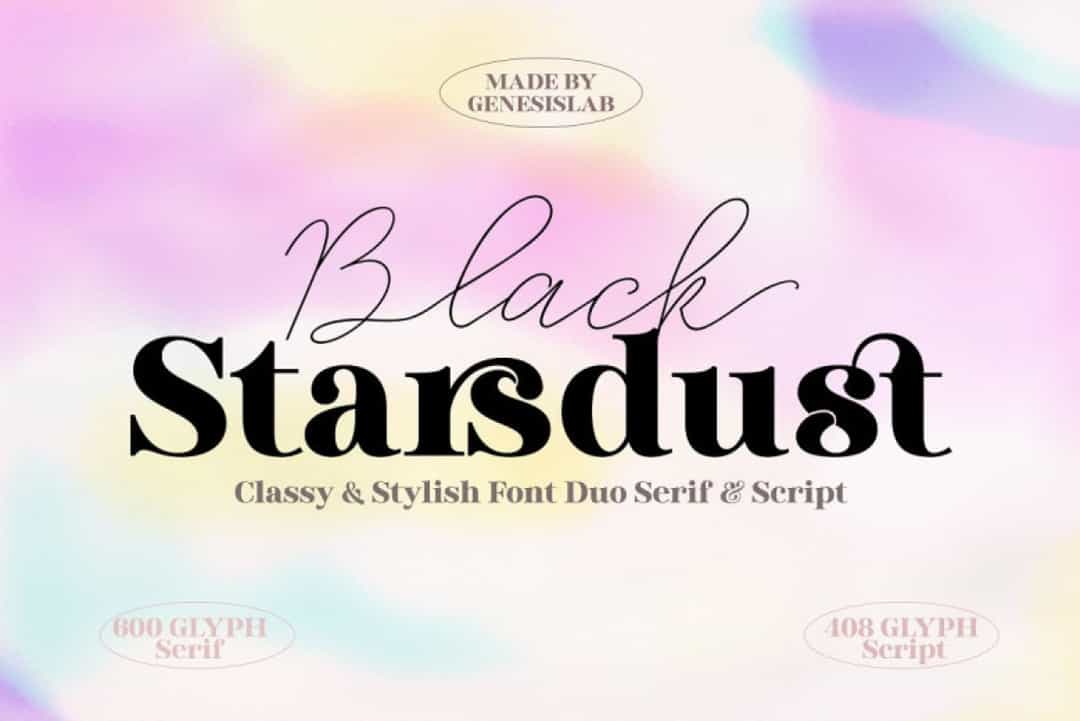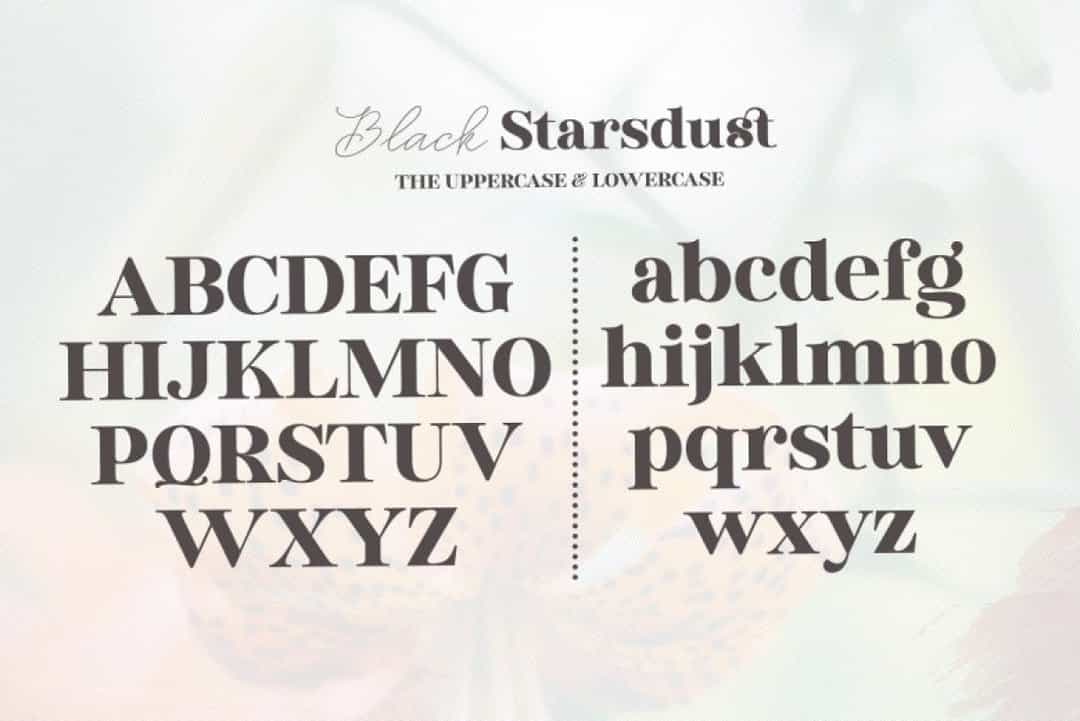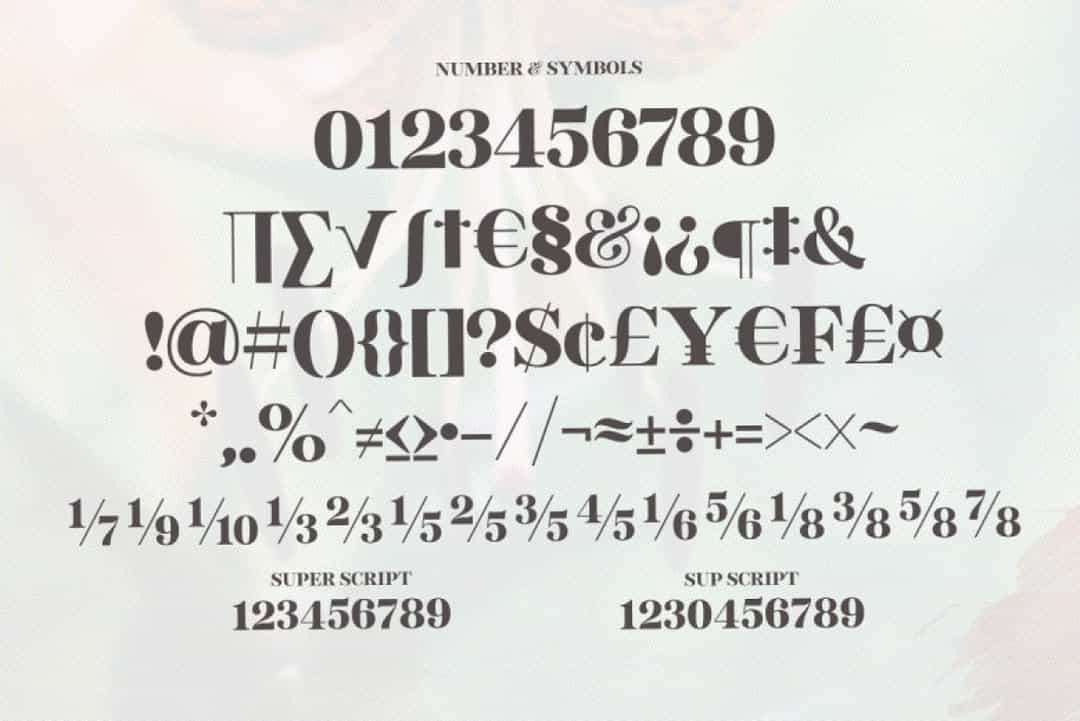
Black Starsdust font by Genesis Lab is an elegant and modern font design. Black Starsdut features blend options to give it its distinctive style; making this font perfect for logos, branding invitations, watermarks, invitations and much more. Black Starsdut font comes with thin script and bold styles of font.